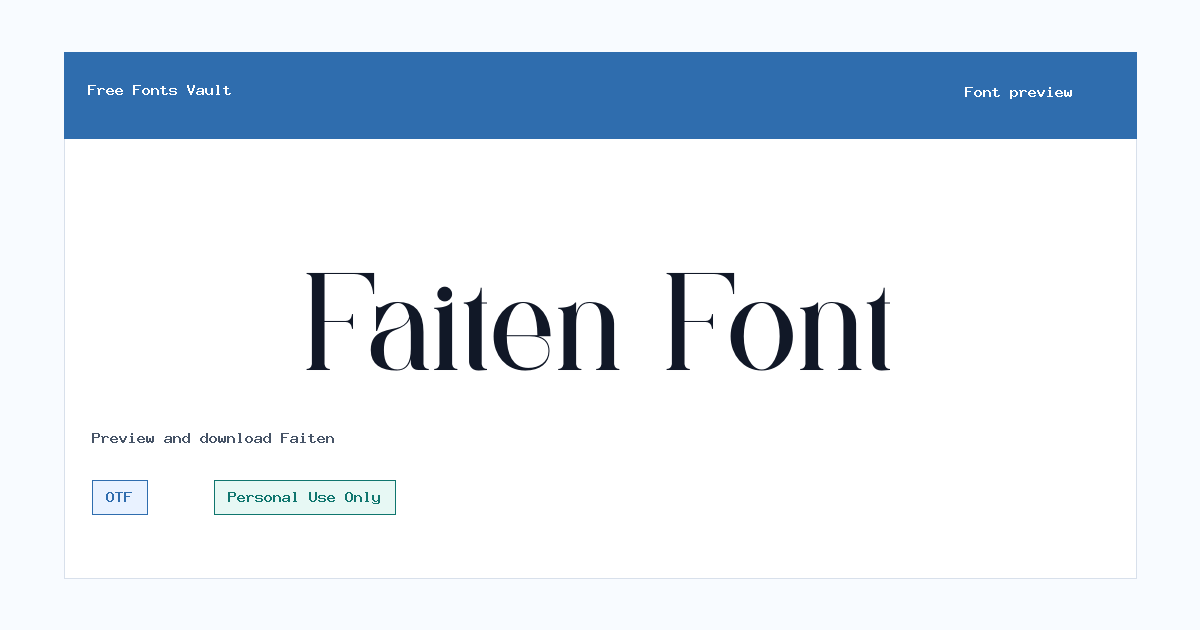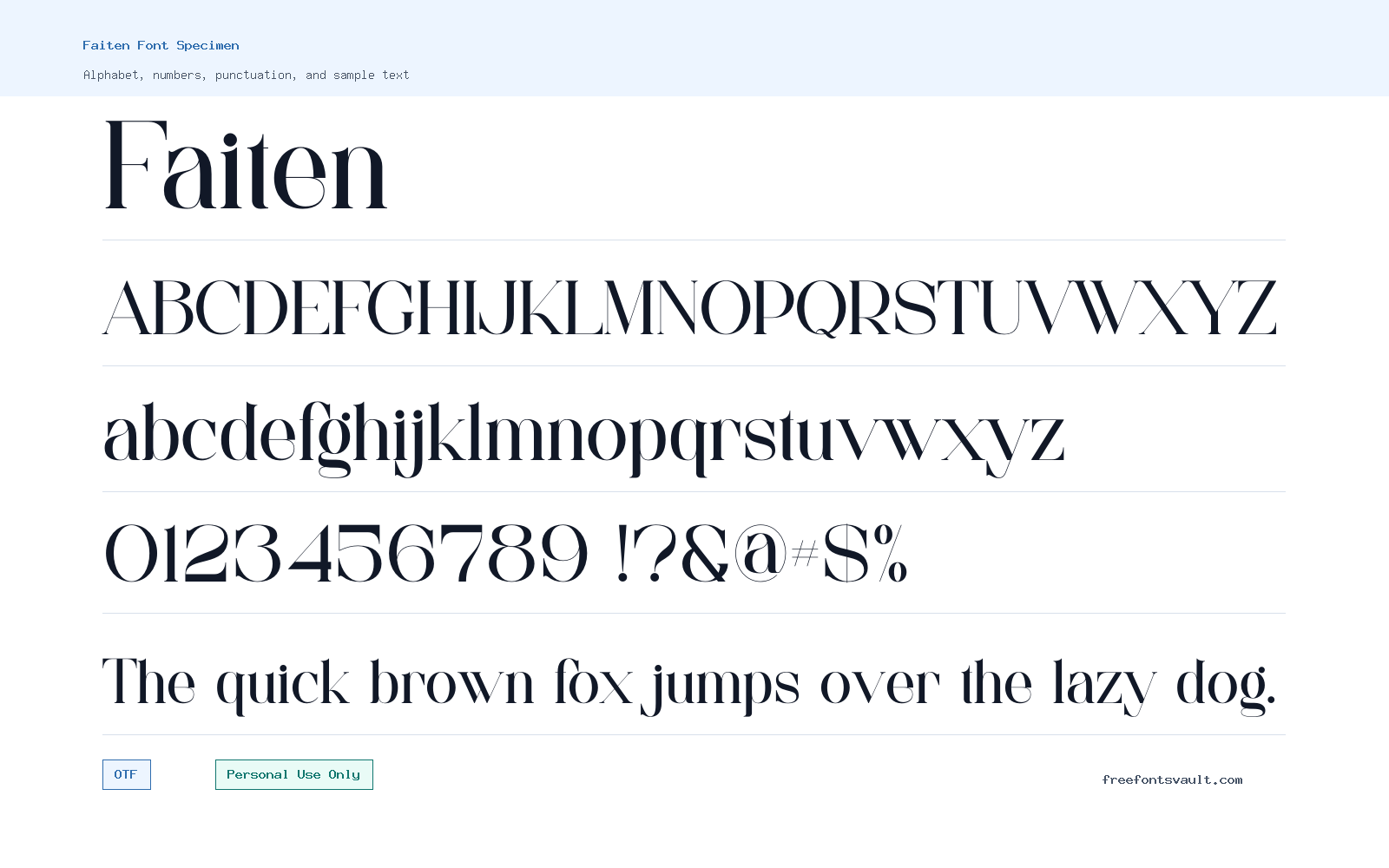
Faiten
- Designer Biham Santoso
Faiten font.
About Faiten Font
Faiten works best when it has room to show its shape. Use it for short lines rather than long reading text: logo drafts, poster titles, packaging-style mockups, social graphics, invitation headings, and portfolio visuals are all good places to try it. Because the family is listed with a regular style and 400 weight, it is most useful as a single display voice rather than a large text system with many weights. Test it in the preview with the exact words you plan to use, especially if your design depends on uppercase forms, tight spacing, or a short brand name.
For logo work, start with simple words and avoid forcing the font into tiny sizes too early. A display serif can look polished at headline size but lose detail in small navigation labels, captions, or mobile UI text. If you are building a poster or web mockup, pair Faiten with a plain sans serif for body copy so the heading keeps attention without making the whole layout feel heavy. Keep spacing generous, compare all-caps and title case, and check punctuation, numbers, and accented characters if your project needs them. The font file format is OTF, which is widely supported in design apps, but web use may require conversion and a license that allows it.
- Regular 400 style suitable for display headings and short text settings
- Serif styling that can suit logos, posters, invitations, and editorial-style mockups
- Best tested at larger sizes where the letter shapes remain clear
- Logo drafts and personal branding experiments
- Poster titles and event-style artwork
- Invitation headings and stationery mockups
- Social media graphics with short phrases
- Packaging, label, and editorial concept layouts
- Portfolio pieces, mood boards, and non-commercial previews
Faiten is credited to Biham Santoso. No foundry name or designer website is listed in the available font details.
Use Faiten as a display font first. Try it in headlines, logos, and short phrases, then pair it with a clean sans serif or simple text serif for paragraphs. Check spacing, numbers, punctuation, and small-size readability before committing it to a finished layout.
Who designed Faiten?
Faiten is credited to Biham Santoso.
What kind of projects is Faiten good for?
Faiten is best for short, visible text such as logo concepts, poster headings, invitation titles, social graphics, packaging mockups, and editorial-style designs. It is not the best first choice for long paragraphs.
What should I pair with Faiten?
Pair it with a simple sans serif for body text, menus, captions, and supporting information. Let Faiten handle the headline or brand-style wordmark while the companion font keeps longer text easy to read.
Should I use Faiten for body copy?
Use caution. Faiten is better suited to display use and short lines. For articles, descriptions, or dense text blocks, choose a more neutral reading font and use Faiten as an accent.